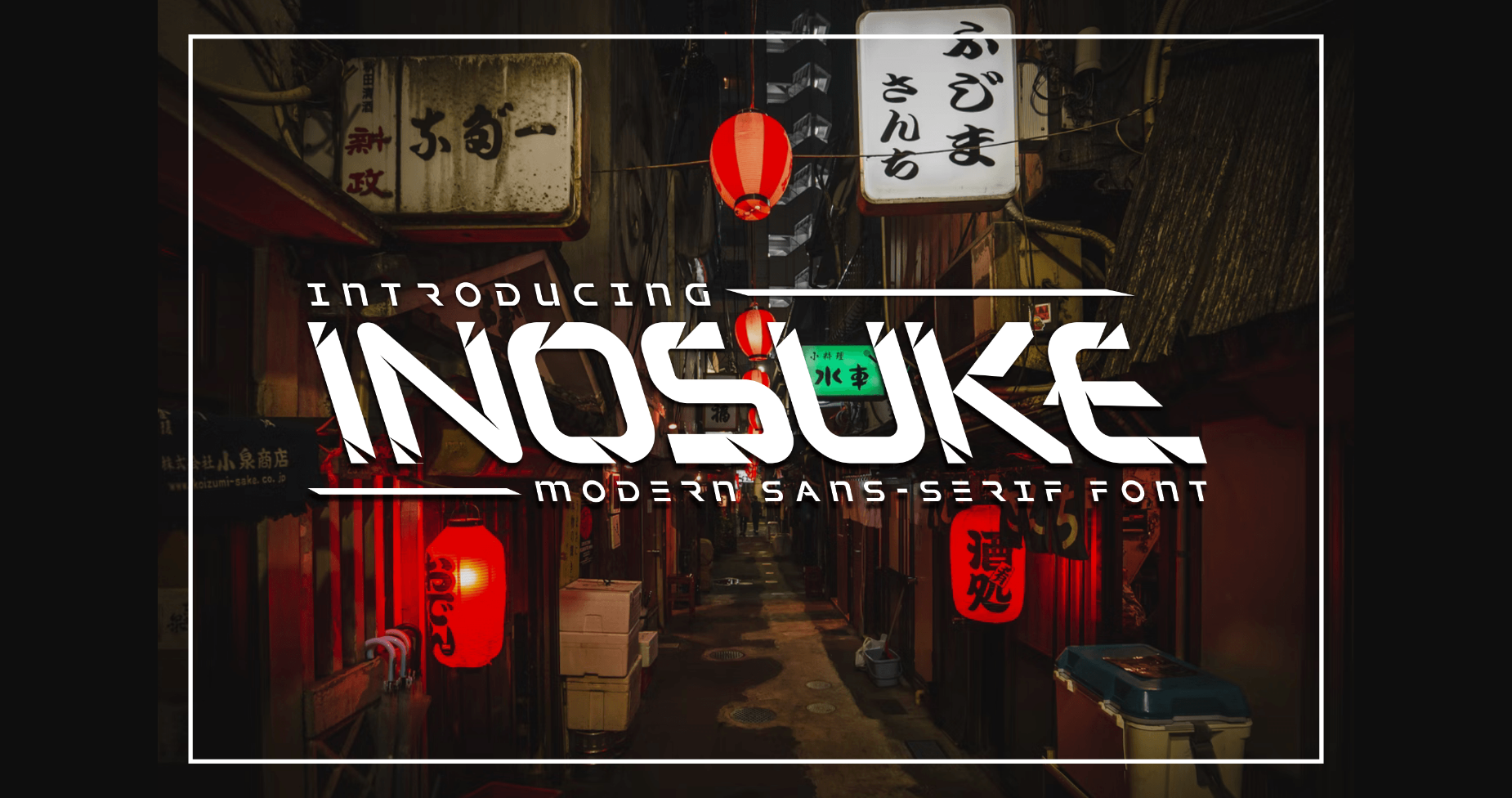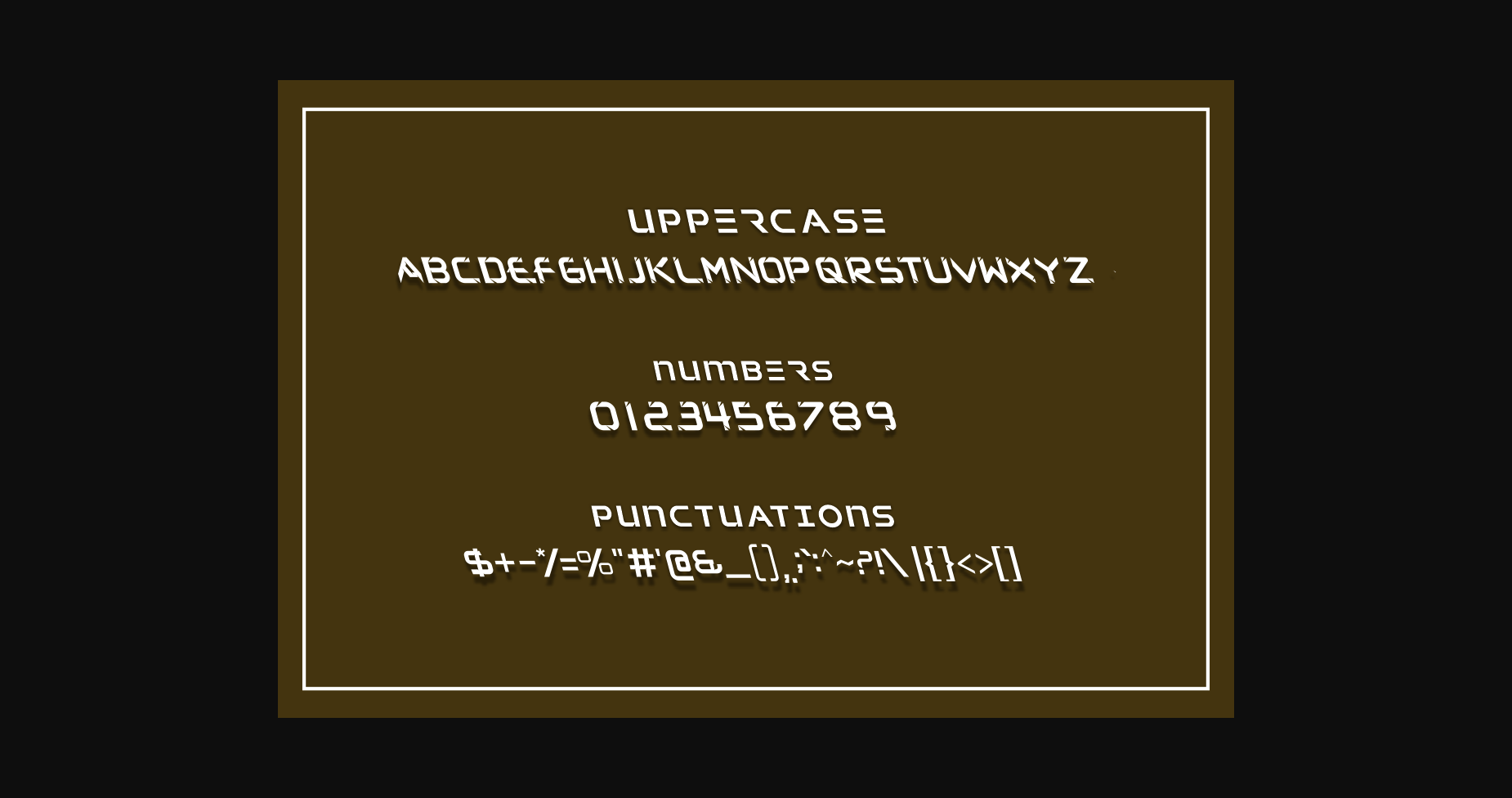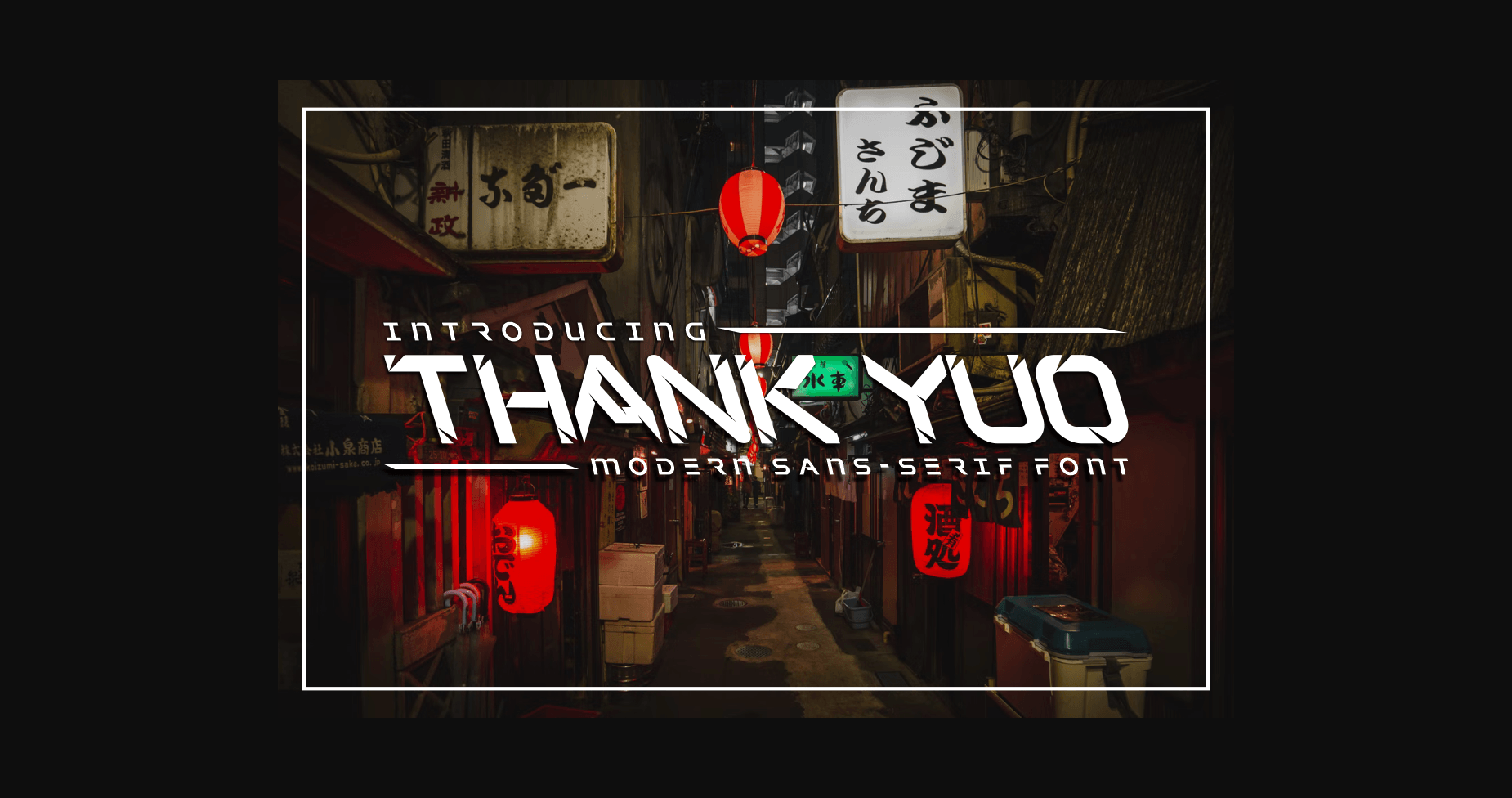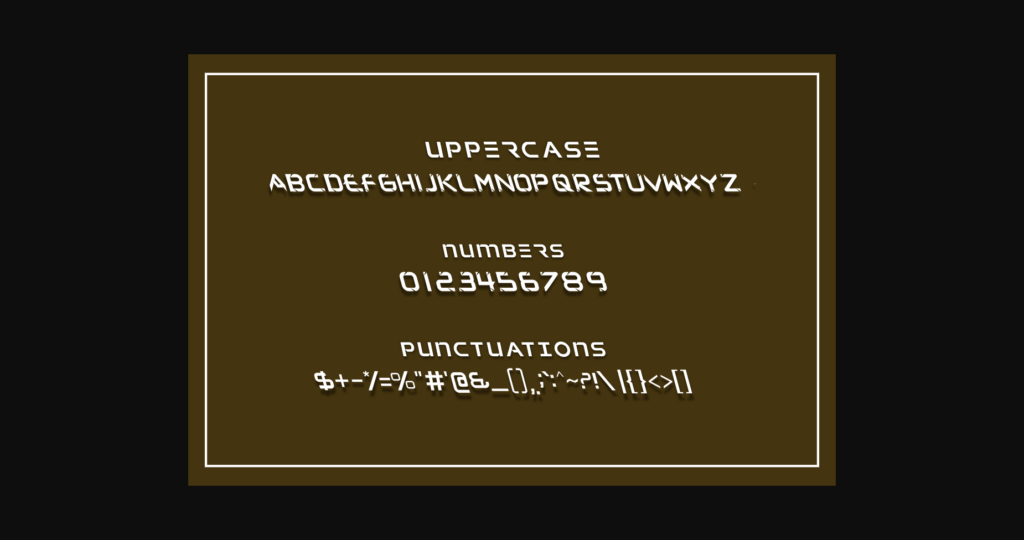
About Inosuke Font
Inosuke is a futuristic sans serif typeface that takes inspiration from sci-fi films, games, and concept art. Great for typography purposes on headlines, posters, and many more.